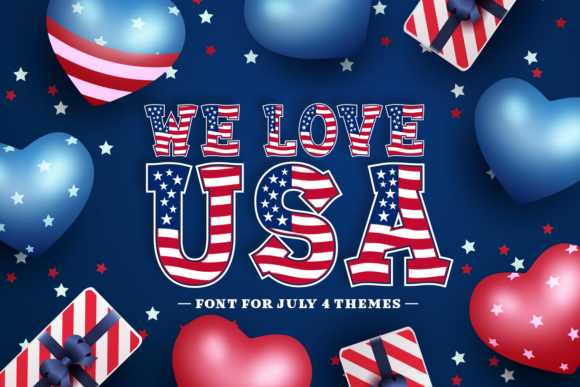
Introducing We Love USA Font - the Best Font For Logotype and the perfect choice for anyone looking for a bold and patriotic decorative font. This stunning font is created by the renowned font designer Dito (7NTypes), and is sure to elevate your designs to new heights.
We Love USA Font is a versatile and eye-catching font family, ideal for a wide range of projects. Its bold and powerful design makes it the perfect choice for everything from apparel designs and product packaging, to branding, name tags, and more. With its clean, sharp lines and elegant curves, We Love USA Font is sure to make a lasting impression on anyone who sees it.
This stunning font family is not only visually striking, but also incredibly easy to use. Its simple yet elegant design makes it the perfect choice for designers of all skill levels, whether you're an experienced professional or just starting out. And with its wide range of applications, We Love USA Font is the perfect choice for anyone looking to create a memorable and impactful design.